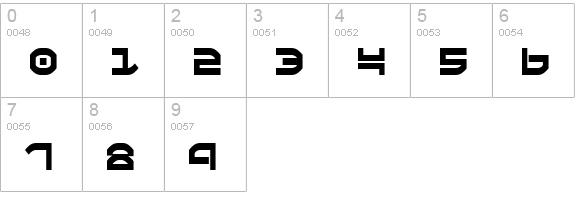
Oberon Condensed is a distinctive, condensed-width variant in the Oberon typeface family \xE2\x80\x94 well suited to design and typography projects.
Oberon Condensed font offers a sleek and modern aesthetic, perfect for creating eye-catching designs with a touch of sophistication. With its clean lines and stylish curves, this typeface exudes a sense of elegance and professionalism. The condensed style of Oberon makes it ideal for fitting more text in limited spaces without sacrificing readability. What sets Oberon Condensed font apart is not only its visually appealing design, but also the fact that it is available for free download at FontsMarket.com. This means that you can easily access this high-quality typeface without any cost, making it a valuable addition to your font collection. Whether you're working on branding projects, editorial layouts, or any other design endeavor, Oberon Condensed font is sure to elevate your work with its refined and contemporary look. Don't miss out on the opportunity to enhance your designs with Oberon Condensed font. Download it for free today and experience the allure of this versatile typeface.